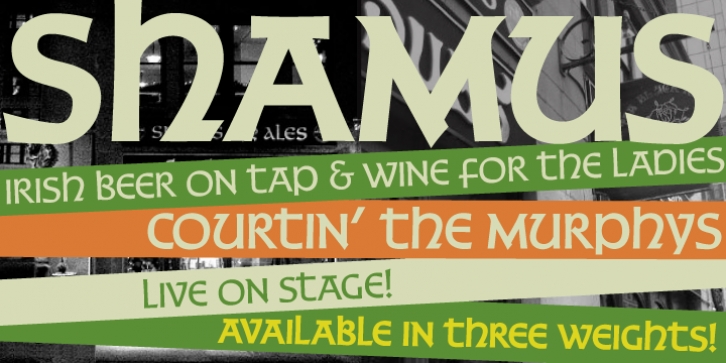
Shamus Pro downloadDesigner: Steve Jackaman,
Publisher: Red Rooster Collection
Shamus is a unique uncial design that contains several weights.
Designed with many alternate glyphs and flourishes, Shamus embodies all the high-end features expected in a quality OpenType Pro font.